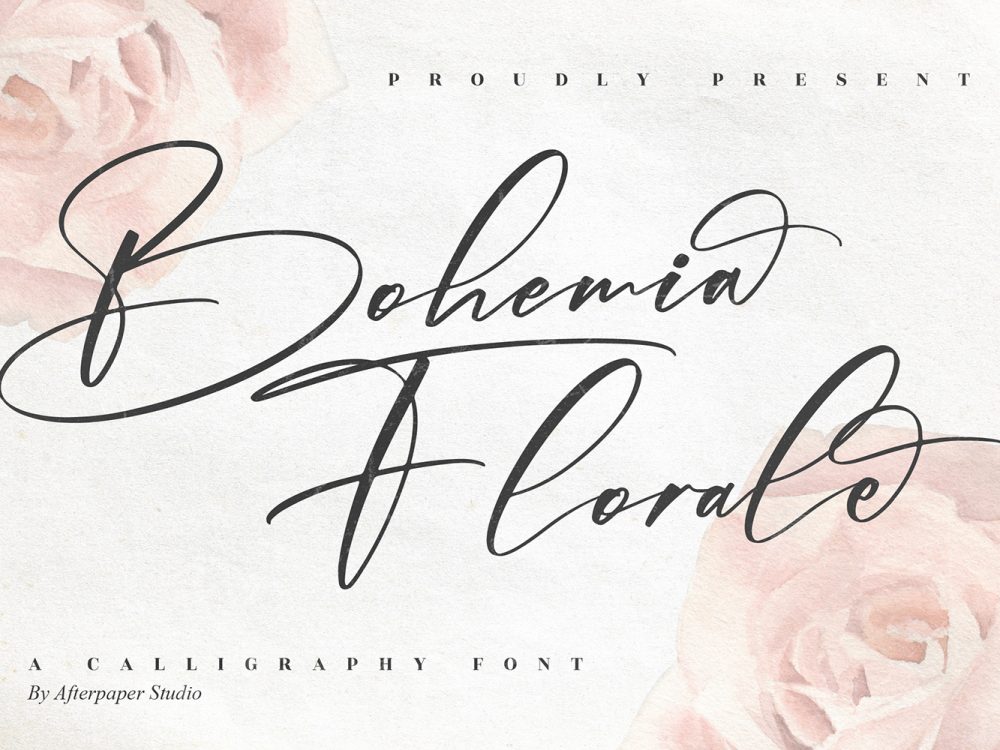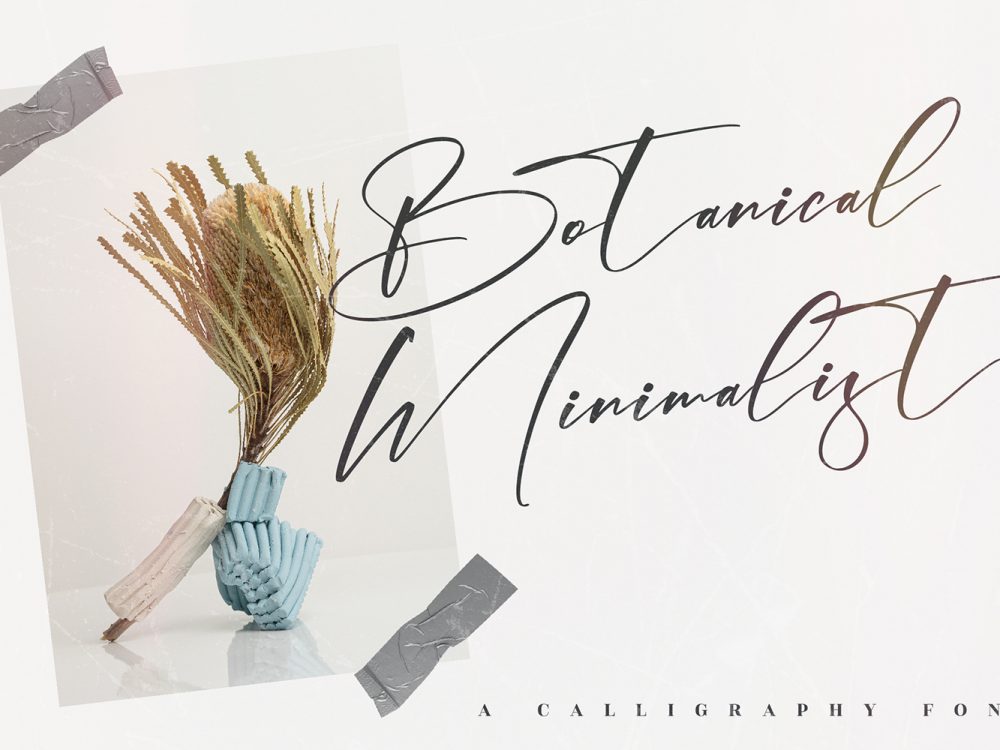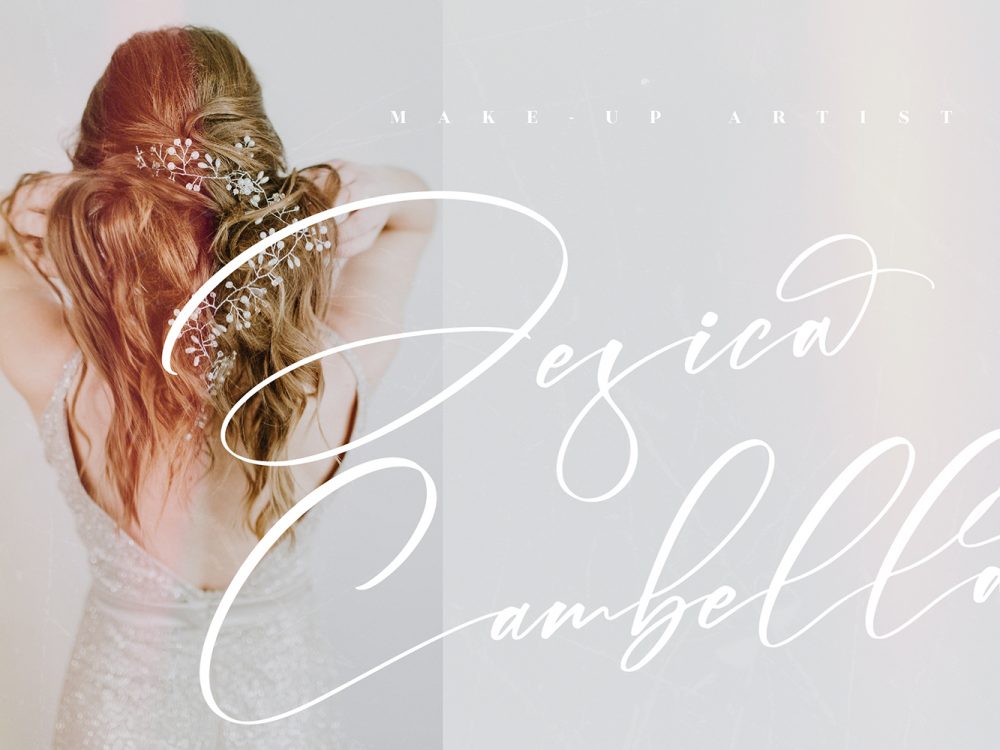
Bohemia Florale Free Font
Bohemia Florale Free Font is a beautiful handwritten font that simulates detailed brush writing and is very suitable for creating various design projects that require a scripted font. These can be posters, invitations, cards, branding, flyer prints, and more. If you wish to access more features and use them for commercial work please buy the full version.